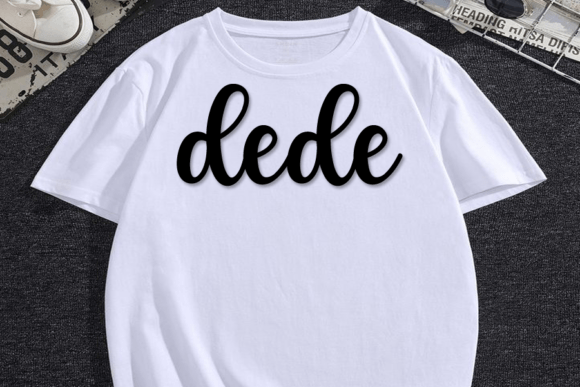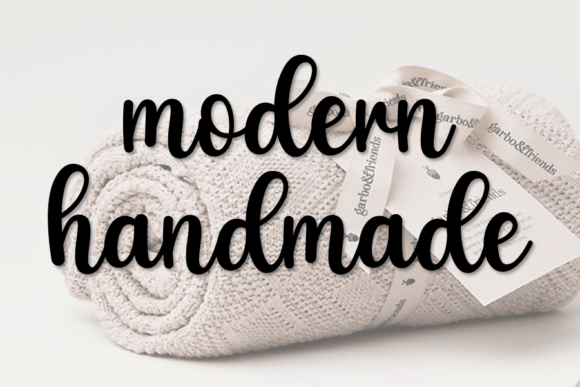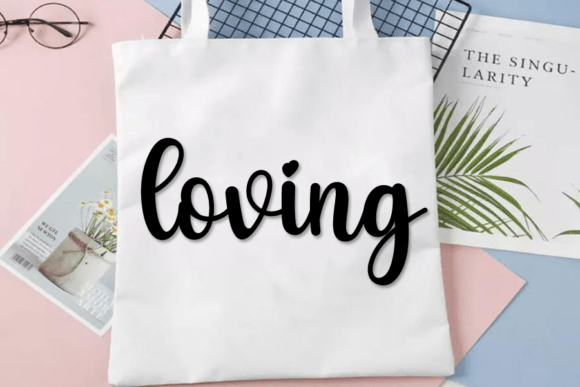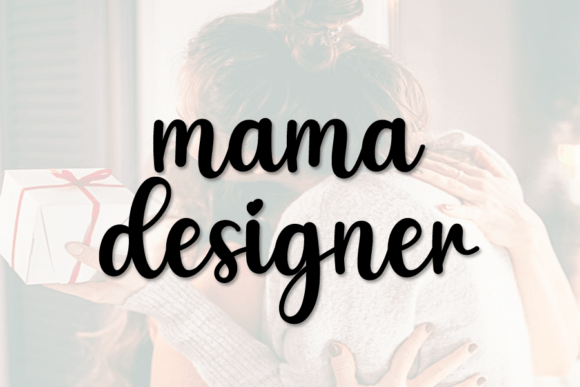
Getting Inspired by the Boho Vibes
Do you ever find yourself lost in a sea of creative ideas, searching for the perfect font to match your unique style? It’s a moment we’ve all been there – staring at a blank canvas, waiting for the spark that sets our imagination ablaze. For designers, it’s a challenge to convey the essence of a brand, a story, or an emotion through a single font. That’s where the Boho Font comes in – a classic, bold, and simple handwritten script that embodies the free-spirited essence of the bohemian lifestyle.
The Boho Font is more than just a font; it’s a statement, a way to express yourself without boundaries. Its versatility makes it a valuable tool for designers, allowing them to bring their creative vision to life in various projects, from logotypes to magazine covers, and from apparel to website designs.
Key Features of Boho Font
- Font Family: Boho Font is a script font family, designed to resemble handwritten text with a bohemian twist.
- Unique Characteristics: Boho Font features a unique blend of elegance and playfulness, with characteristics such as swashes, flourishes, and subtle imperfections that give it a handmade feel.
- Style Variations: Includes multiple style variations, including regular, bold, italic, and bold italic, to provide designers with a range of options for creative expression.
Designer Review: Boho Font
First off, I have to say that I love the Boho Font’s unique charm ✨. The intricate details and organic feel give it a bohemian vibe that’s perfect for creative projects. It’s great for headings, and the font’s fluidity makes it easy to read.
The font comes in a range of weights, from light to bold, which is ideal for adding depth and visual interest to your design. The italic styles are also well-done, adding an extra layer of personality to your text.
What Doesn’t Quite Hit the Mark
While I appreciate the Boho Font’s unique qualities, there are some limitations to consider ⚠️:
- The font can be a bit difficult to read at smaller sizes, so be sure to test it out at various scales.
- The font’s organic feel can sometimes make it look a bit cluttered or overwhelming, especially in large blocks of text.
- The font family is a bit limited, so you may find yourself wanting more variation in the future.
All in all, I think the Boho Font is a great choice for designers looking to add a touch of whimsy to their projects. While it may not be the most versatile font out there, its unique charm and range of weights make it a great addition to any design toolbox.
Tips for Getting the Most Out of Boho Font
Experiment with different font sizes and styles to create a unique look.
Combine Boho Font with other fonts to add depth and interest to your designs.
Use Boho Font for headings and titles to create a focal point in your design.
Boho Font is ideal for:
Travel and adventure branding
Wellness and self-care marketing
Food and lifestyle blog design
Alternatives to Boho Font for Designers
Great Vibes is a beautiful, handwritten font that captures the essence of the bohemian style. It is ideal for use in invitations, wedding stationery, and other creative projects that require a touch of elegance and whimsy.
Compared to Boho Font, Great Vibes has a more refined and sophisticated look, making it a better choice for high-end projects. While Boho Font is more playful and quirky, Great Vibes exudes a sense of luxury and sophistication.
Alex Brush is a elegant, handwritten font that is perfect for use in branding, packaging, and other design projects that require a touch of sophistication. It has a unique, cursive feel that is both modern and timeless.